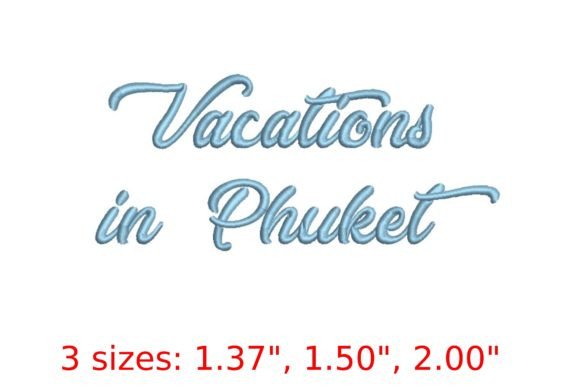
Vacations in Phuket Font: A Tropical Embroidery Design for Creative Expression
The Vacations in Phuket Font is more than just a design—it’s an experience. Inspired by the sun-soaked beaches, vibrant culture, and serene landscapes of Phuket, this font captures the essence of a tropical getaway. Whether you're crafting beach-themed apparel, vacation mementos, or home decor, this font brings the spirit of Phuket to life. It's designed to inspire creativity and infuse your projects with the allure of unforgettable holiday experiences.
Why the Vacations in Phuket Font Matters
In today’s fast-paced world, people are increasingly seeking ways to express their personal style and connect with meaningful content. The Vacations in Phuket Font taps into a growing trend of personalized and thematic design. As consumers become more conscious of aesthetics and authenticity, fonts like this one offer a way to stand out in a crowded market.
Moreover, the rise of DIY and craft culture has made embroidery and custom design more accessible than ever. With tools like digital embroidery machines and online design platforms, creators can bring their visions to life with greater ease. The Vacations in Phuket Font fits seamlessly into this creative ecosystem, offering a unique aesthetic that aligns with modern design sensibilities.
Trends Driving Interest in Thematic Fonts
The popularity of thematic fonts like Vacations in Phuket Font reflects broader shifts in how people approach design and personal expression. There's a growing preference for fonts that tell a story or evoke a specific mood. This aligns with the increasing demand for branded and curated content across social media, product packaging, and promotional materials.
Additionally, the rise of remote work and digital nomad lifestyles has led to a renewed interest in travel and cultural experiences. People are not only looking for places to visit but also ways to keep those memories alive through creative expression. Fonts like Vacations in Phuket Font serve as a bridge between physical travel and digital storytelling.
Practical Applications of the Vacations in Phuket Font
The versatility of the Vacations in Phuket Font makes it suitable for a wide range of applications. For instance, it can be used to create custom t-shirts, tote bags, and other apparel that reflect a love for tropical destinations. It's also ideal for crafting personalized gifts, such as embroidered coasters or keychains that capture the essence of a memorable trip.
Home decor enthusiasts might find the font perfect for adding a touch of island charm to their living spaces. From throw pillows to wall art, the Vacations in Phuket Font can elevate everyday items with a sense of place and personality. Its elegant yet playful design ensures that it complements both modern and rustic interiors.
How to Use the Vacations in Phuket Font Effectively
To make the most of the Vacations in Phuket Font, consider the following tips:
- Start with a theme: Choose a project that aligns with the font's tropical vibe—whether it's a summer festival item or a beach-themed collection.
- Experiment with colors: Pair the font with shades that evoke warmth and relaxation, such as ocean blues, sandy beiges, and lush greens.
- Combine with other elements: Use the font alongside images of Phuket’s landmarks, seashells, or palm trees to enhance the visual impact of your designs.
- Test on different materials: Ensure the font looks great on various fabrics and surfaces, from cotton to canvas.
By thoughtfully integrating the Vacations in Phuket Font into your creative workflow, you can create products that resonate with audiences who value both style and substance.
Real-World Examples and Inspiration
Imagine a small business owner selling handmade jewelry. By incorporating the Vacations in Phuket Font into their packaging or product tags, they can add a unique flair that sets them apart from competitors. Similarly, a blogger who shares travel stories might use the font to create visually appealing blog headers or social media posts that reflect their passion for exploration.
The Vacations in Phuket Font is more than a design—it's an invitation to explore, create, and connect. In a world where personal expression is highly valued, this font offers a meaningful way to infuse your projects with the spirit of adventure and beauty. Whether you're a hobbyist, entrepreneur, or professional, the font provides a versatile and inspiring tool that aligns with current trends and creative needs.